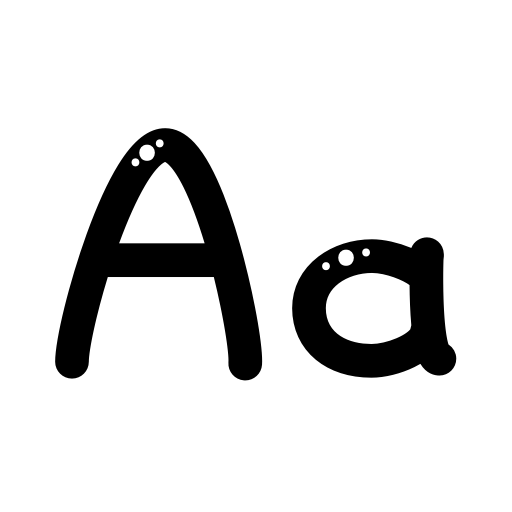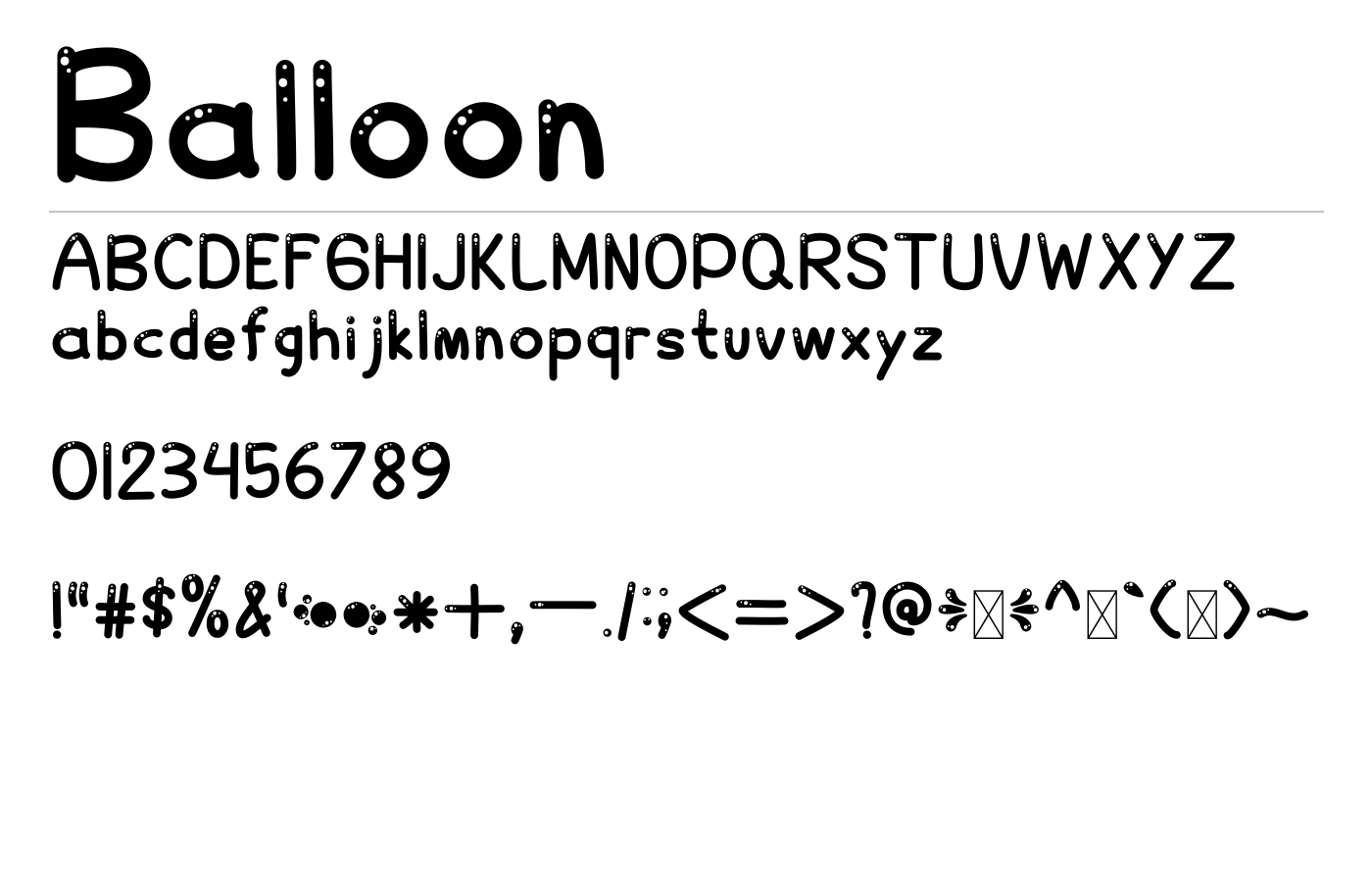
Balloon Font is a playful, rounded sans serif typeface with a casual, hand-drawn feel that evokes friendliness and fun. Its bold weight and softly curved letterforms, accented by small dot details, make it ideal for children's materials, informal branding, and creative projects that seek a warm and approachable vibe. This font works well in headlines, logos, and packaging where a lighthearted and whimsical tone is desired.
Balloon Font
About Balloon Font